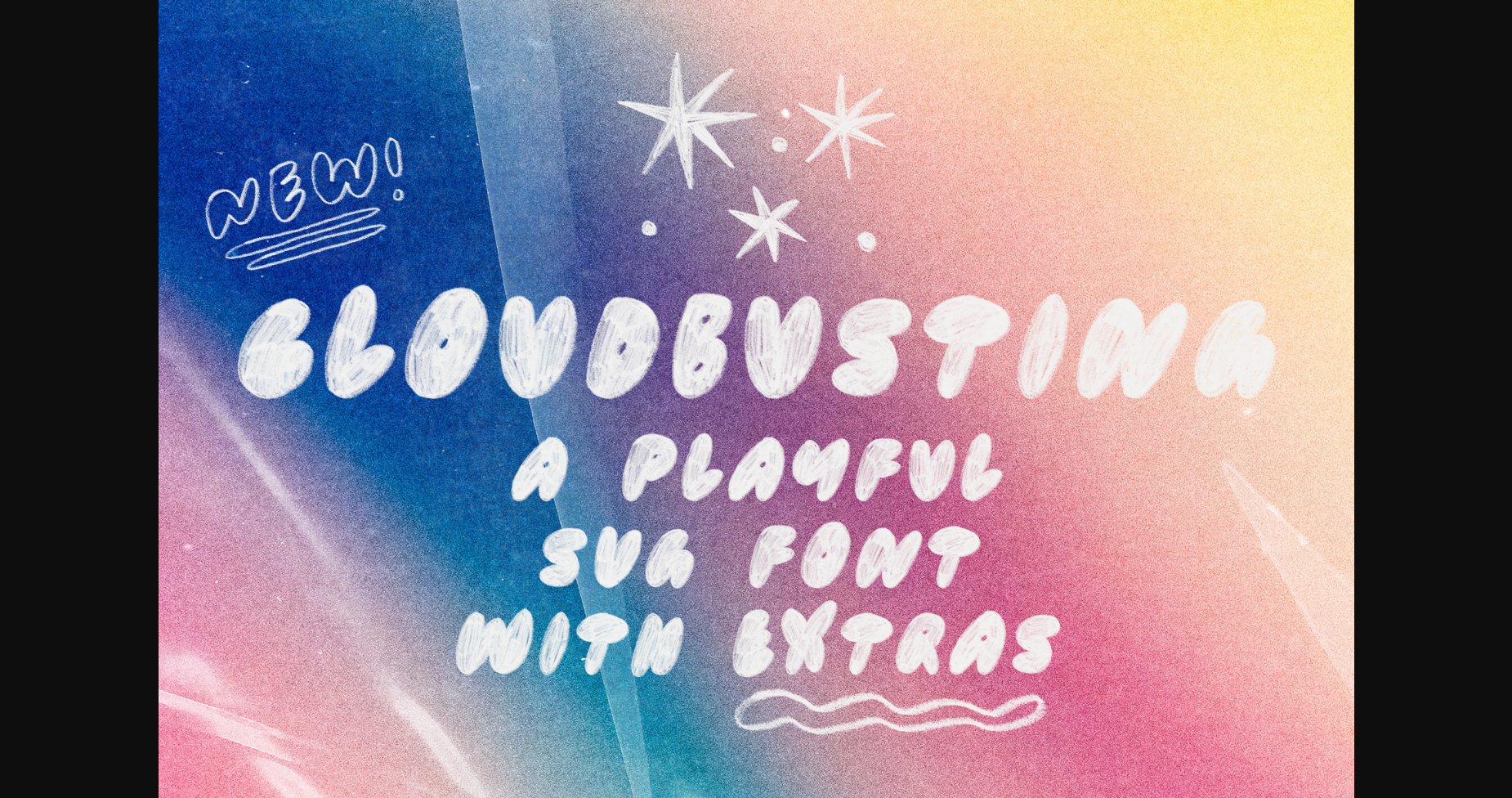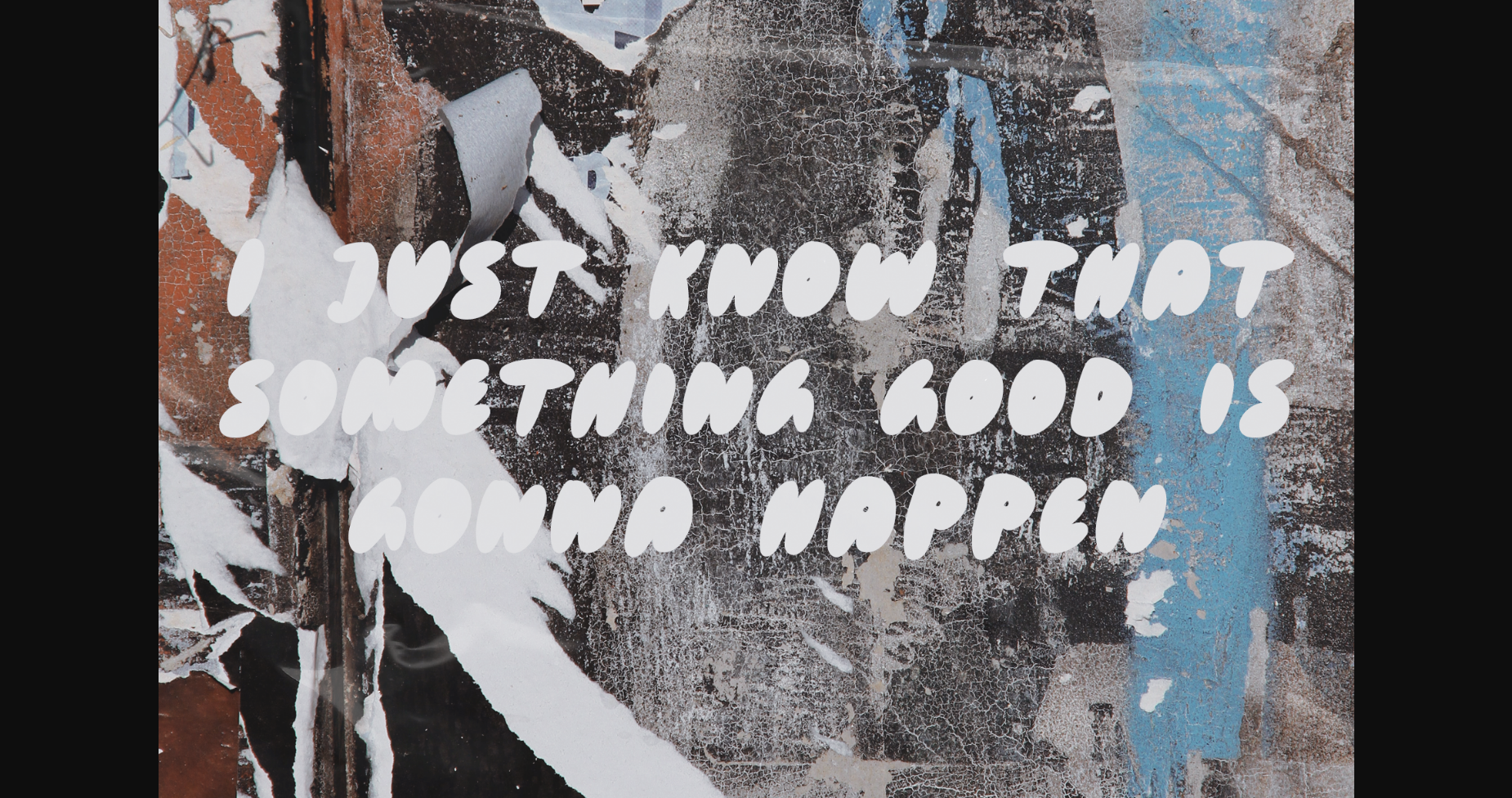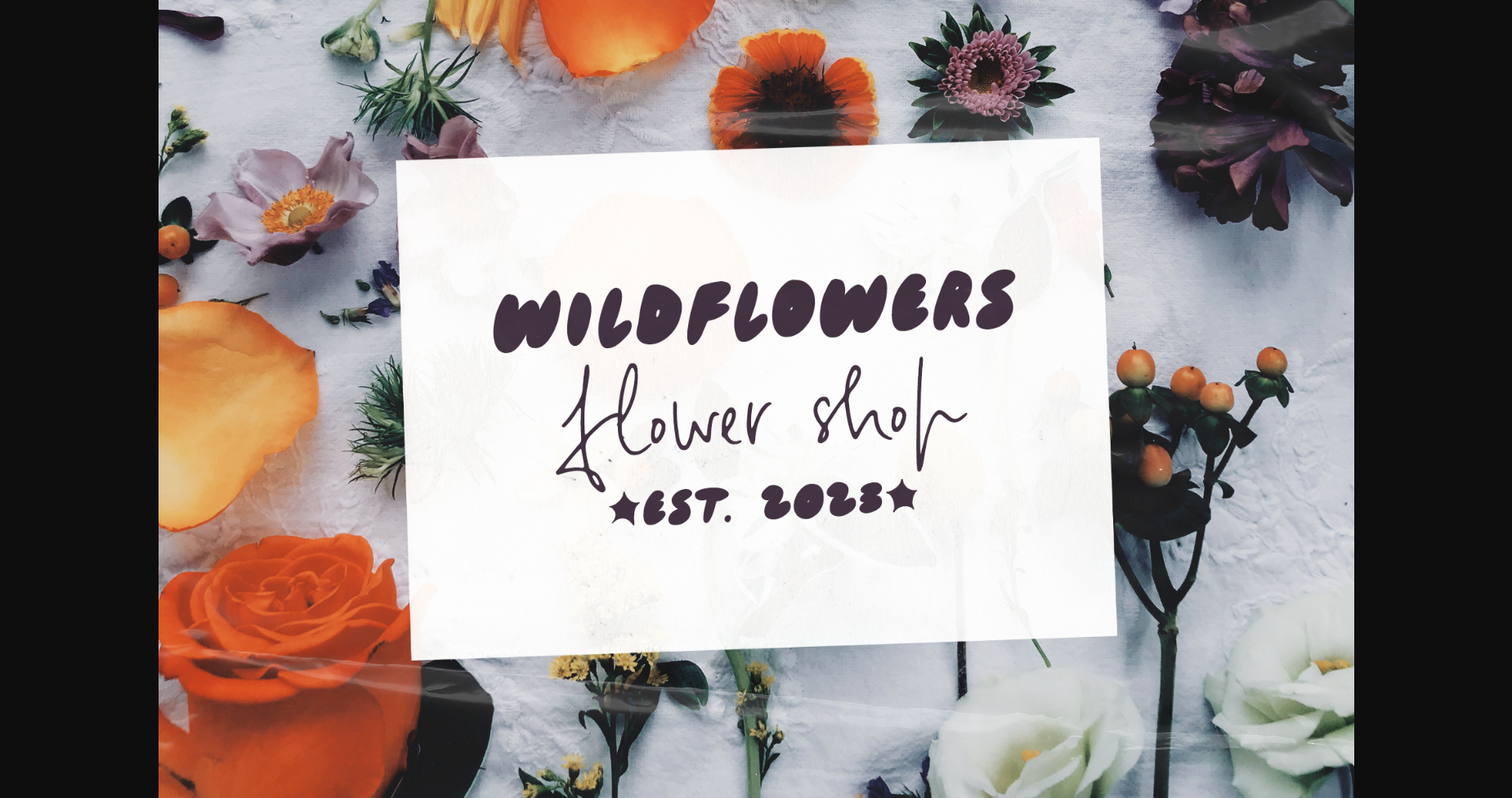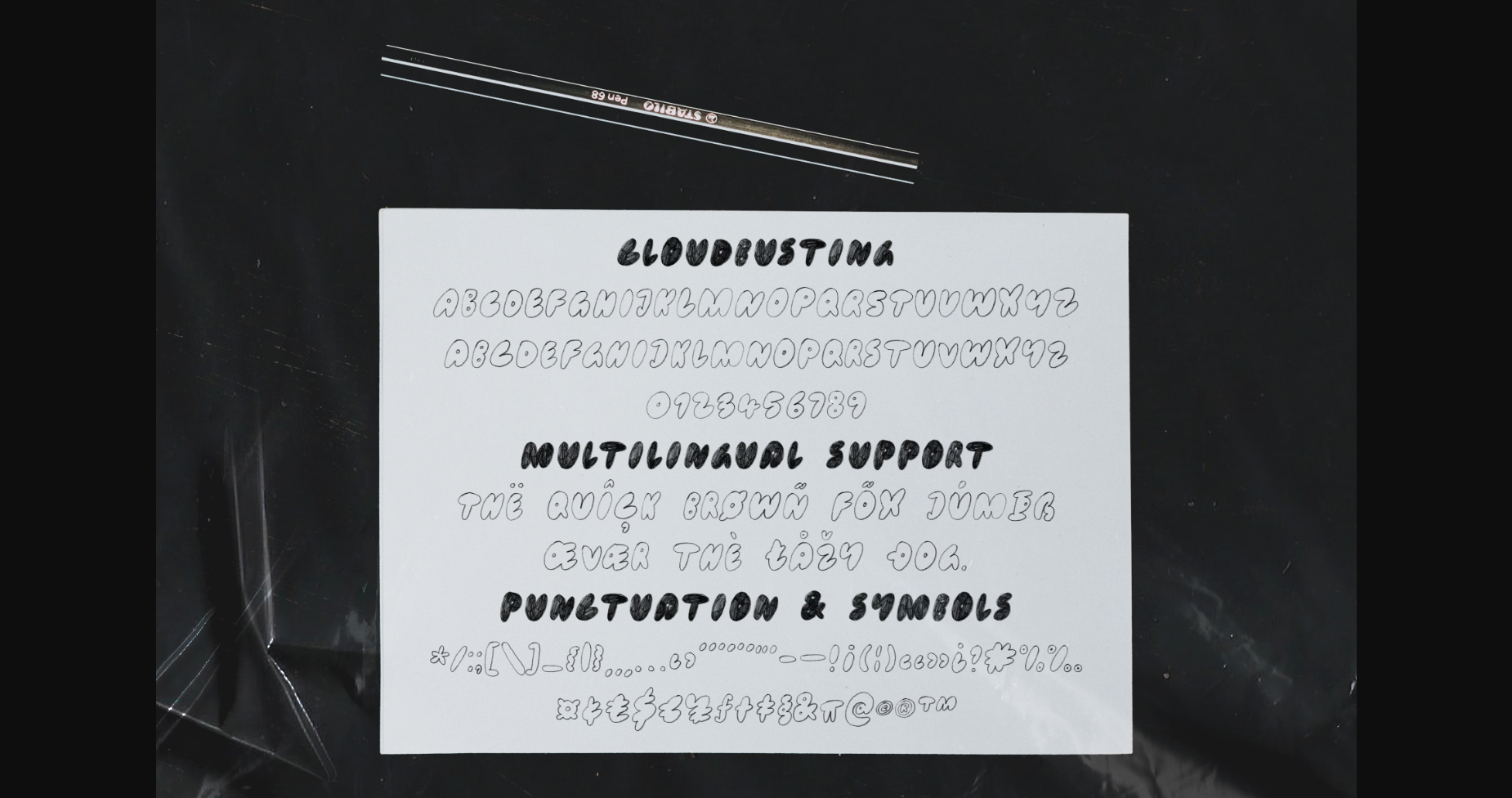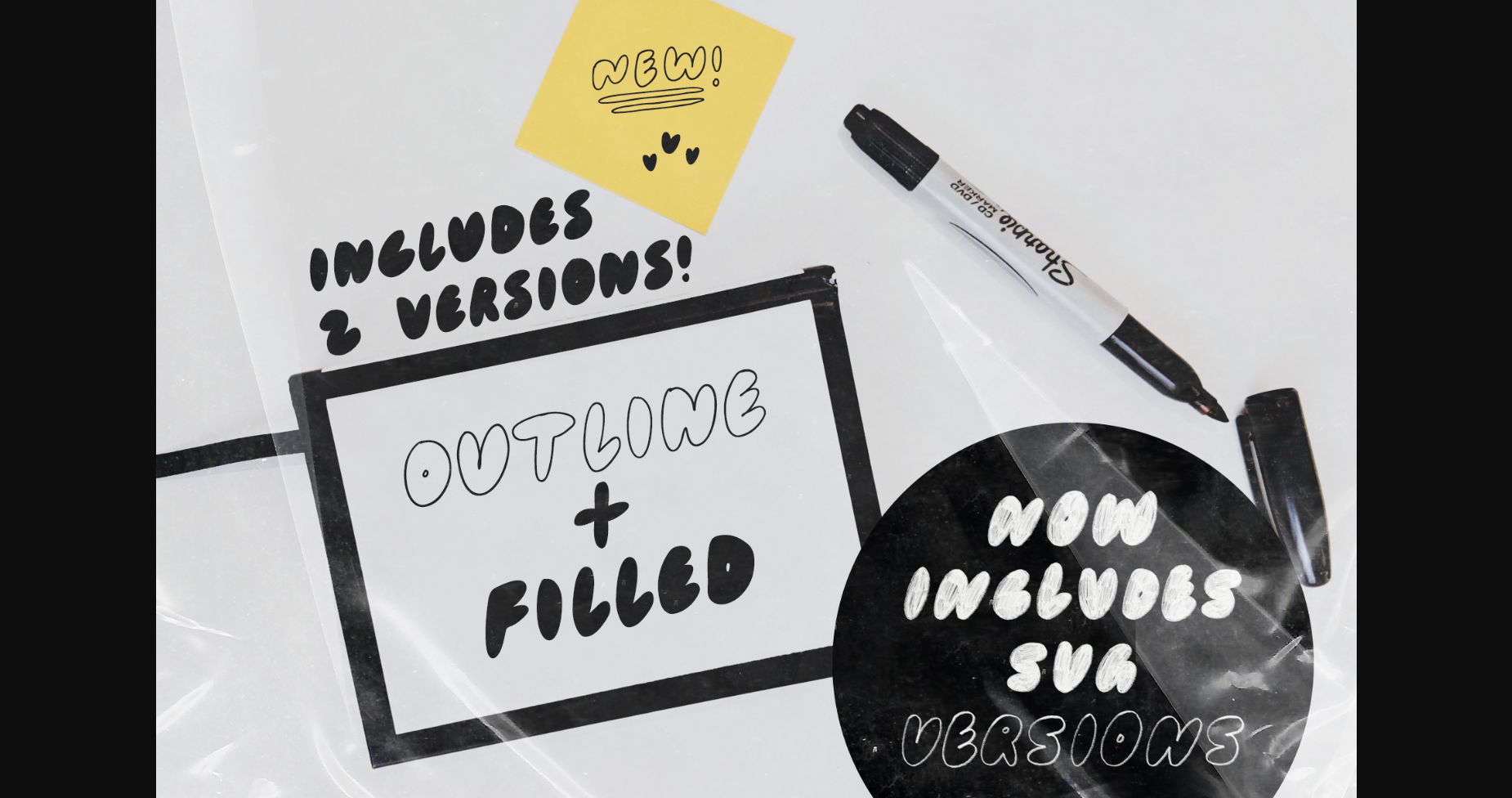
About Cloudbusting Font
Cloudbusting is a playful sans serif font with a bubble letters look, lots of variations, and an extra set of drawings. Perfect for any design that needs a bold font, such as logotypes, quotes, social media posts, website and magazine layouts, and poster designs.